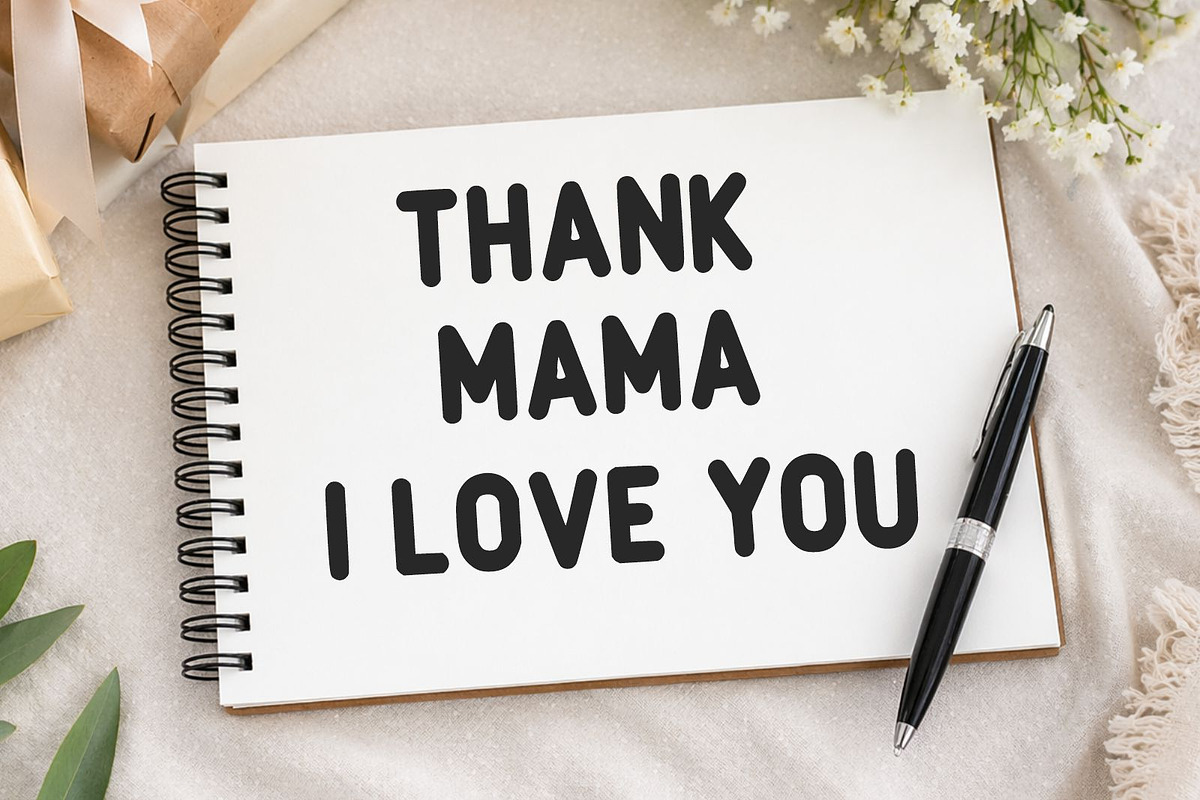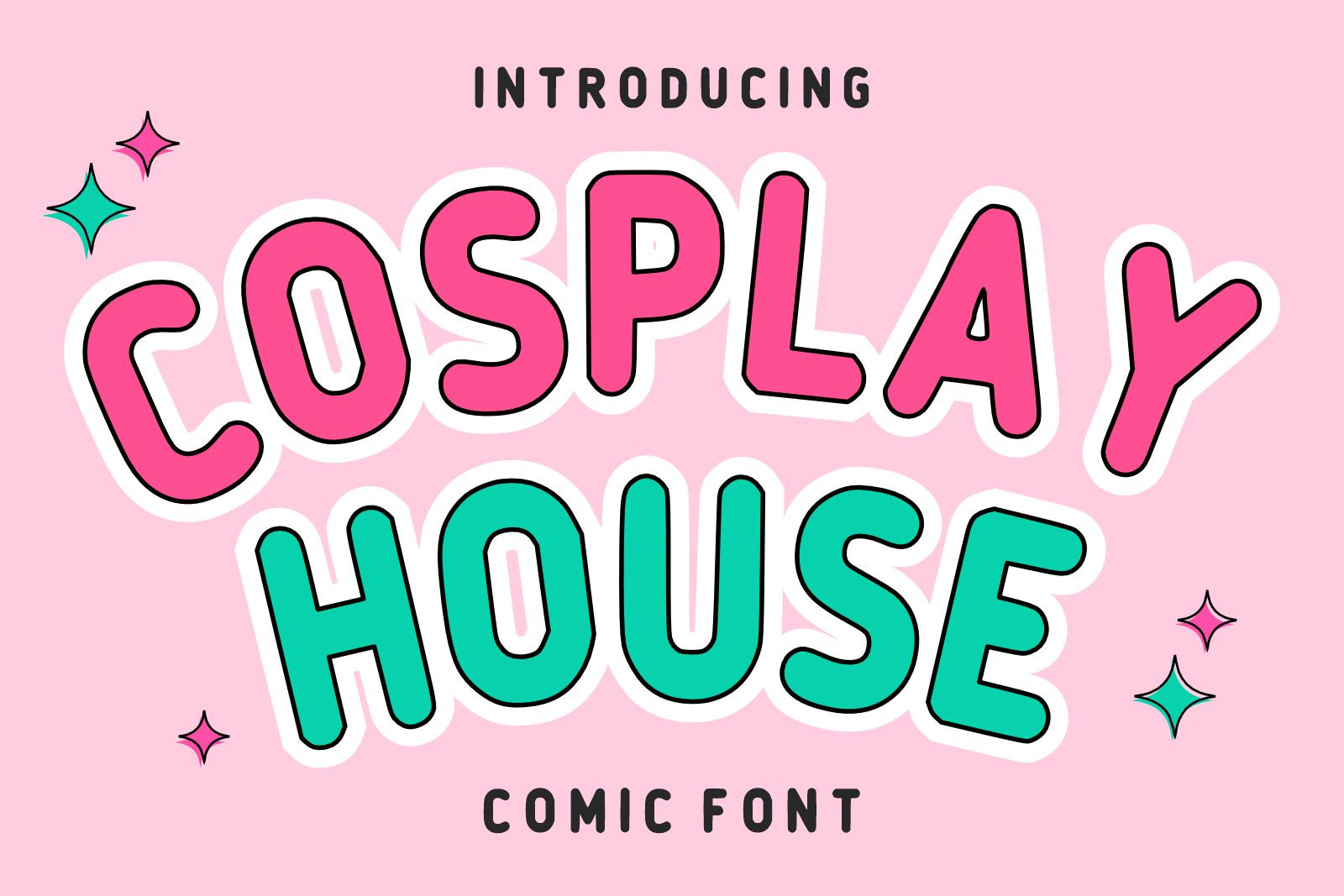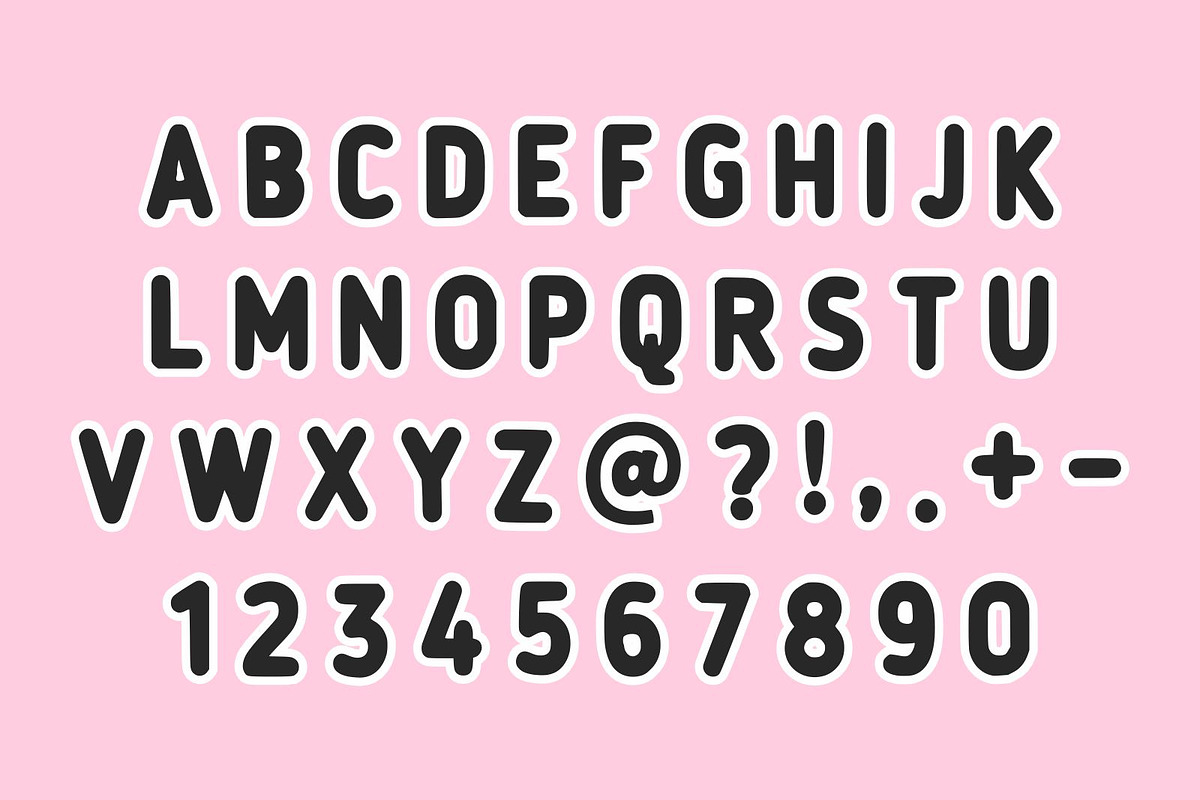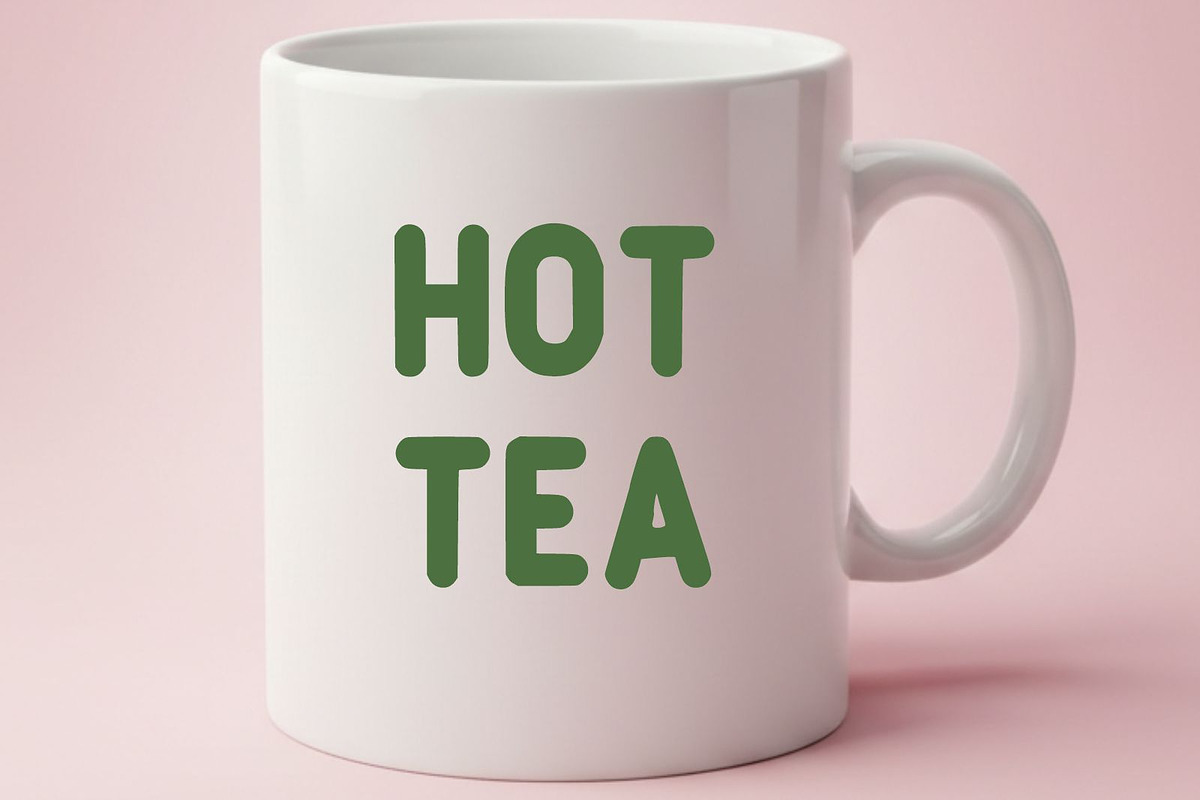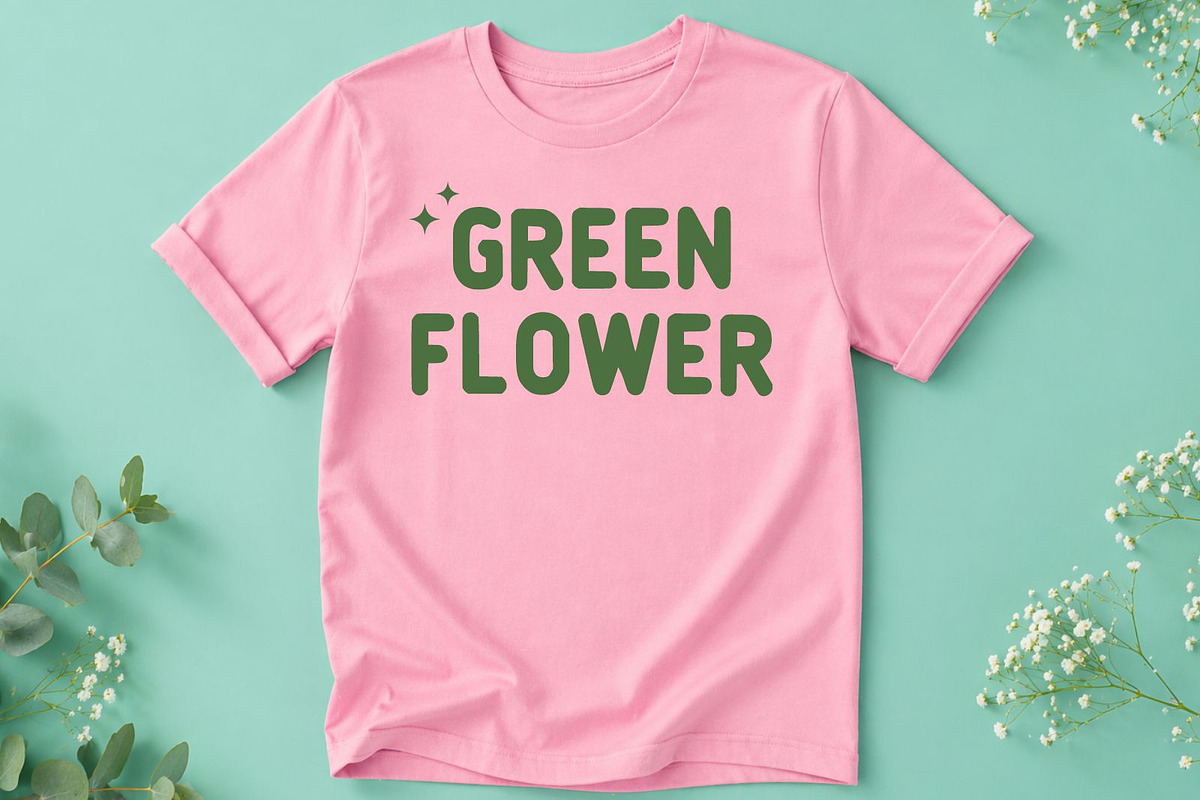
Cosplay House – Playful Comic Font
Cosplay House is a playful comic font with rounded shapes, bold characters, and a cheerful cartoon style. This font is perfect for comic books, children’s designs, posters, branding, stickers, invitations, social media graphics, packaging, and fun creative projects. Its energetic and colorful appearance brings a cute and friendly personality to every design.